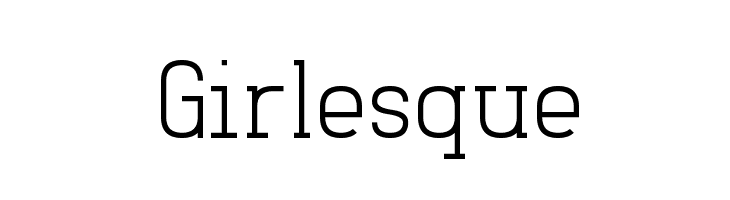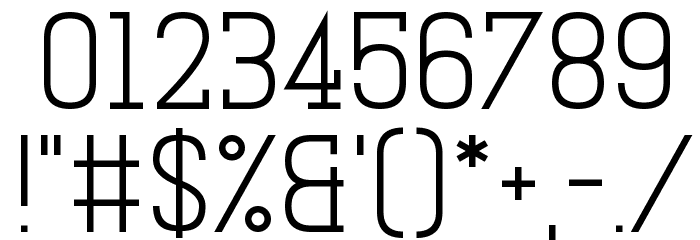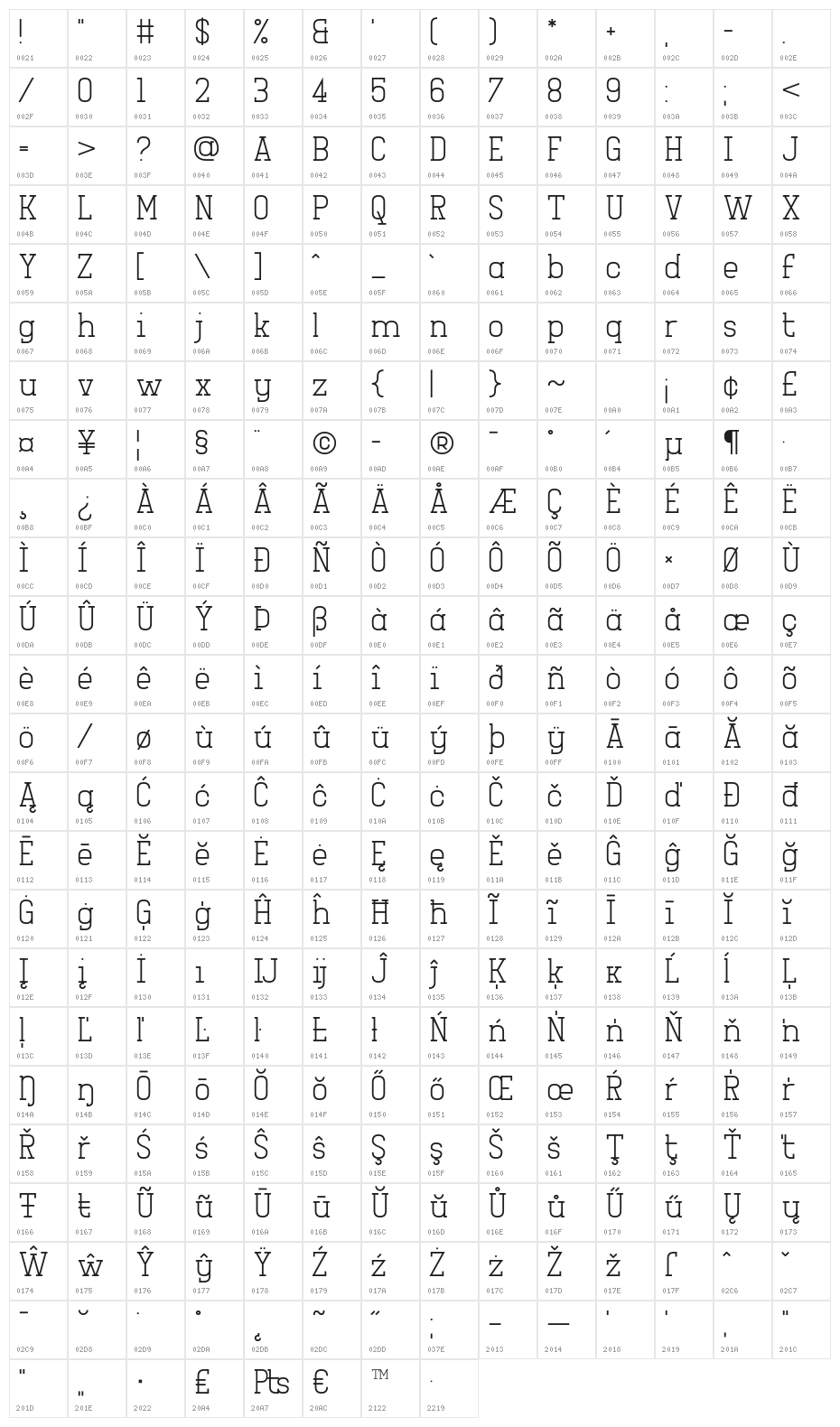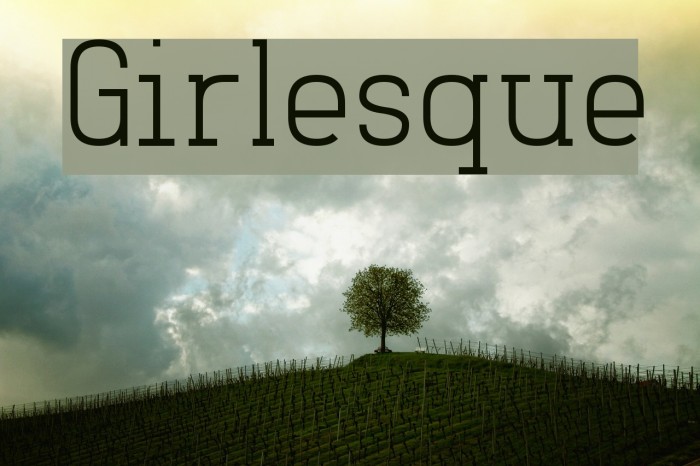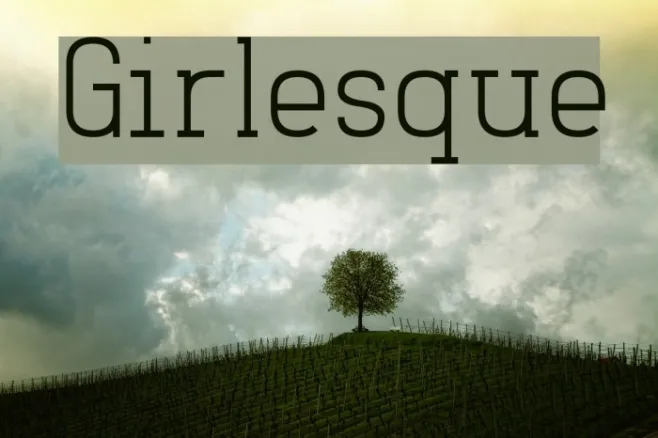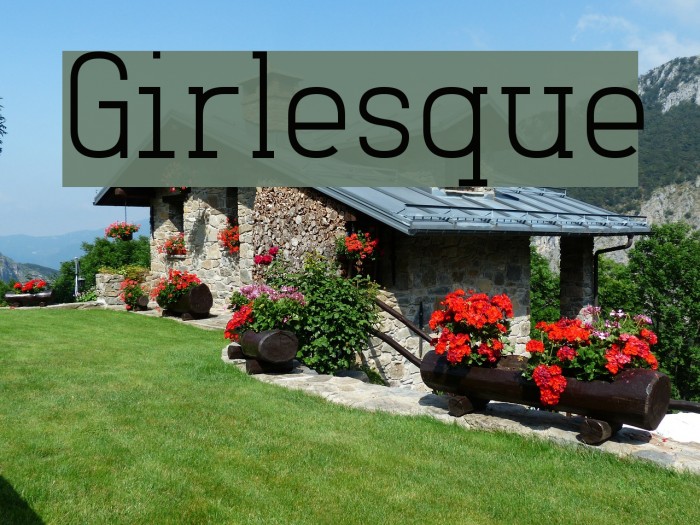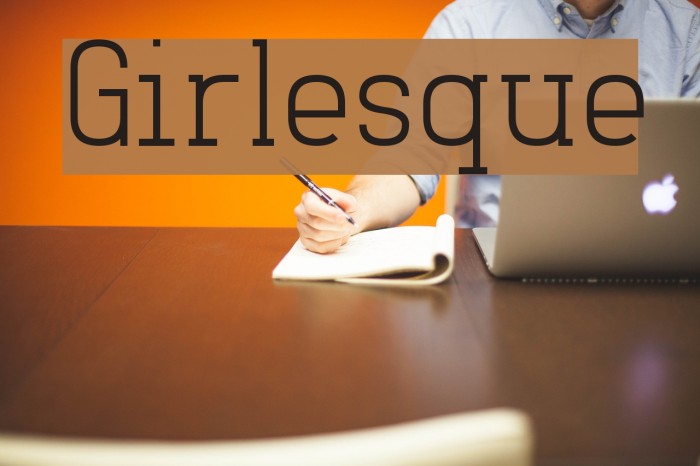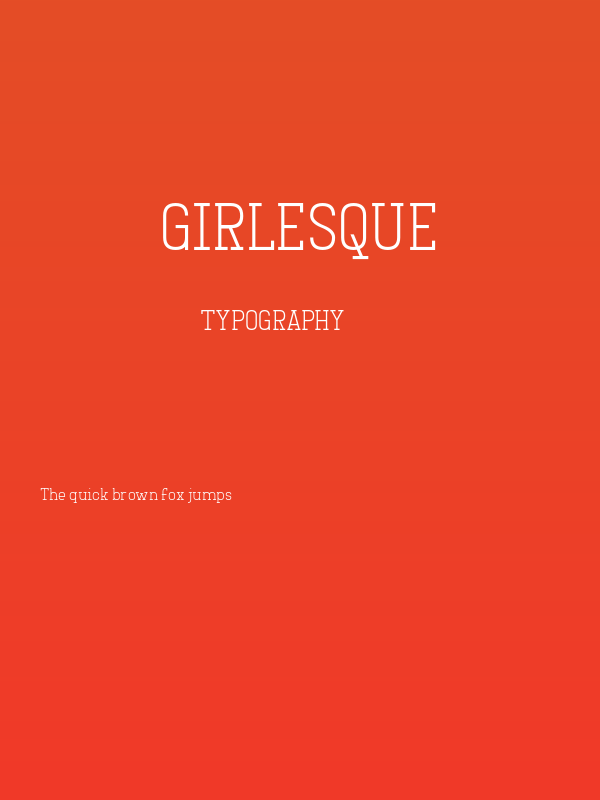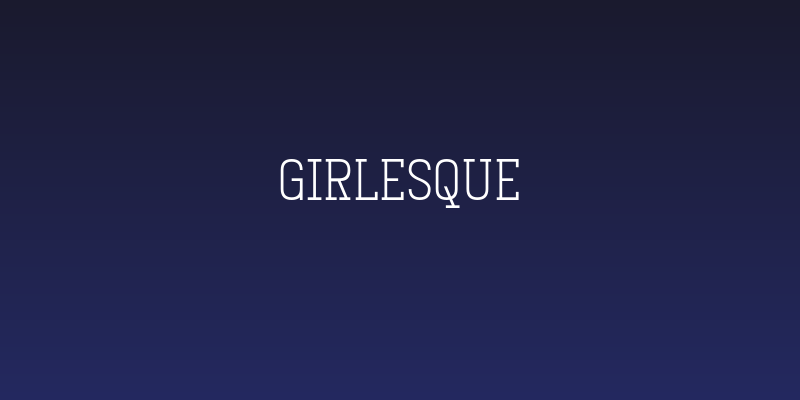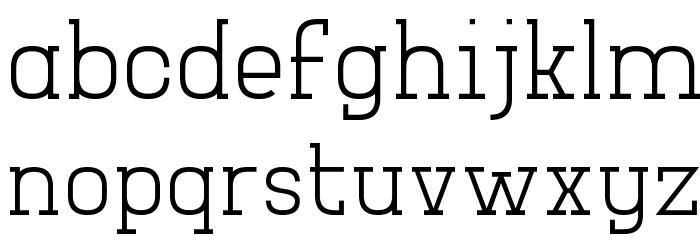
Girlesque Font
Girlesque Description
This font features a modern and clean design with a monospaced structure. Each character is evenly spaced, providing a uniform appearance that enhances readability. The strokes are consistent in width, offering a low contrast that contributes to its straightforward and utilitarian style. The uppercase letters are bold and prominent, while the lowercase letters maintain a balanced and harmonious look. The numerals are clear and distinct, making them suitable for technical or data-driven projects. Special characters are well-defined, adding versatility to the font's application. Overall, this font is ideal for projects that require precision and clarity.
| Use Case | Coding, Technical documents, Data visualization |
| Proposed Projects | Ideal for coding, technical documents, data visualization, and minimalist design projects. |